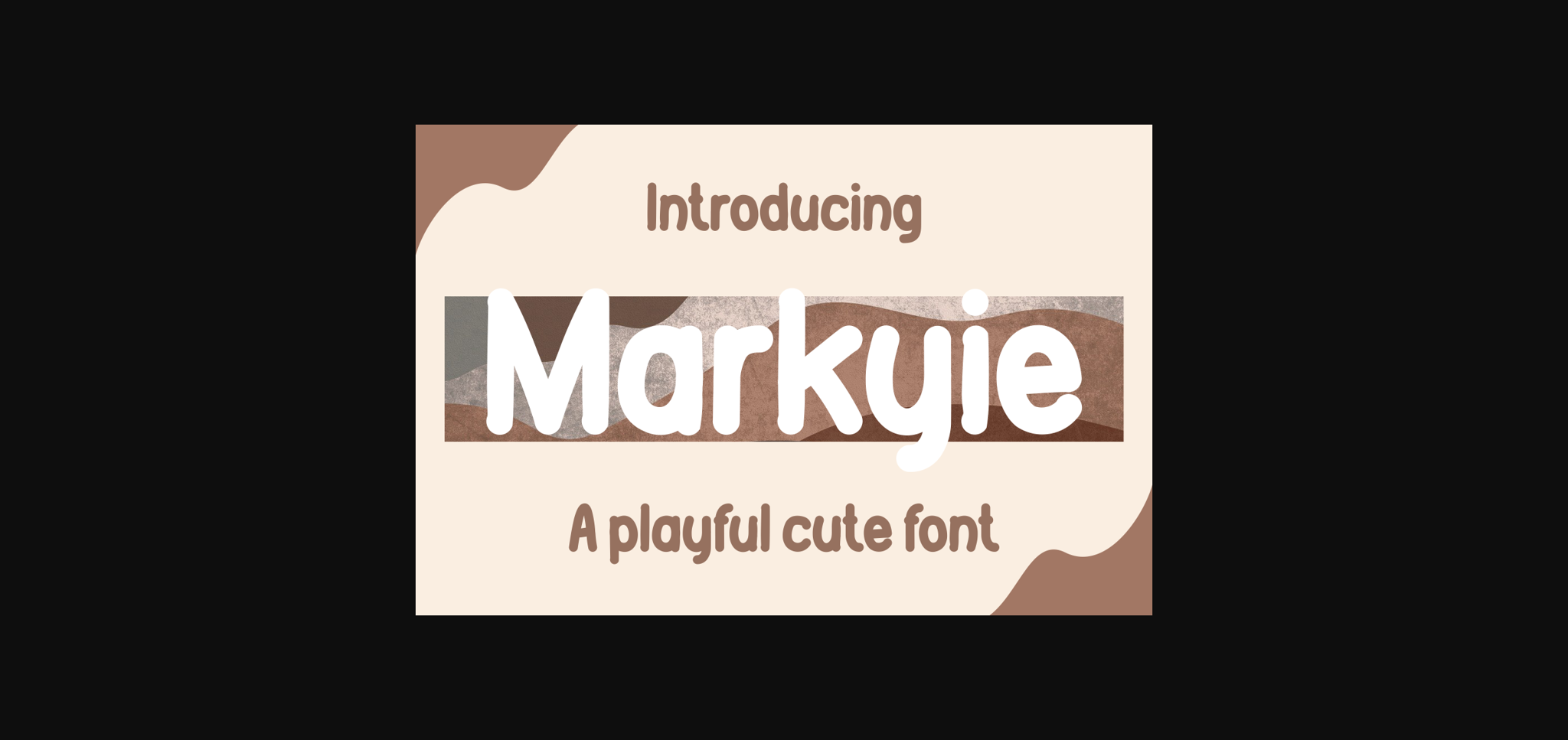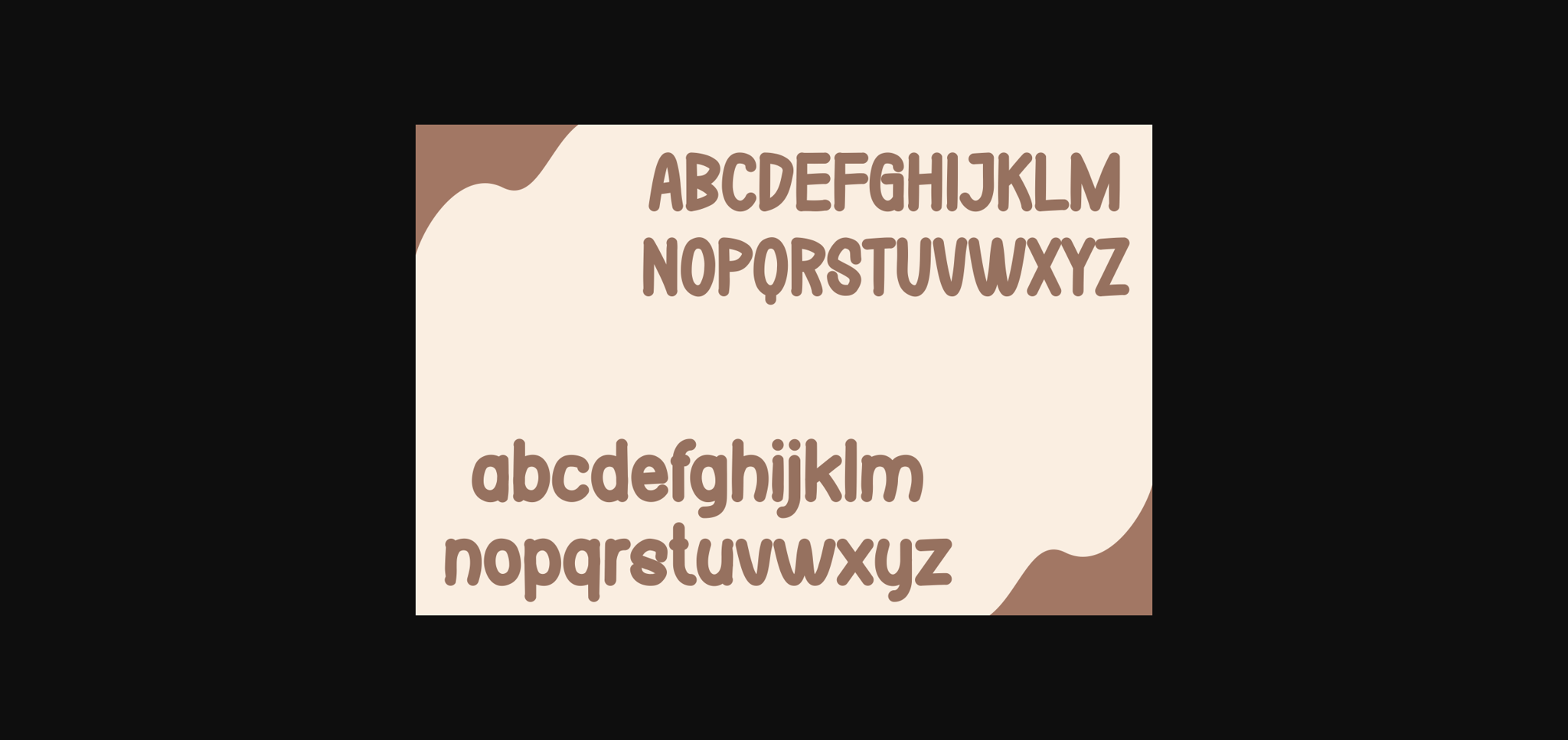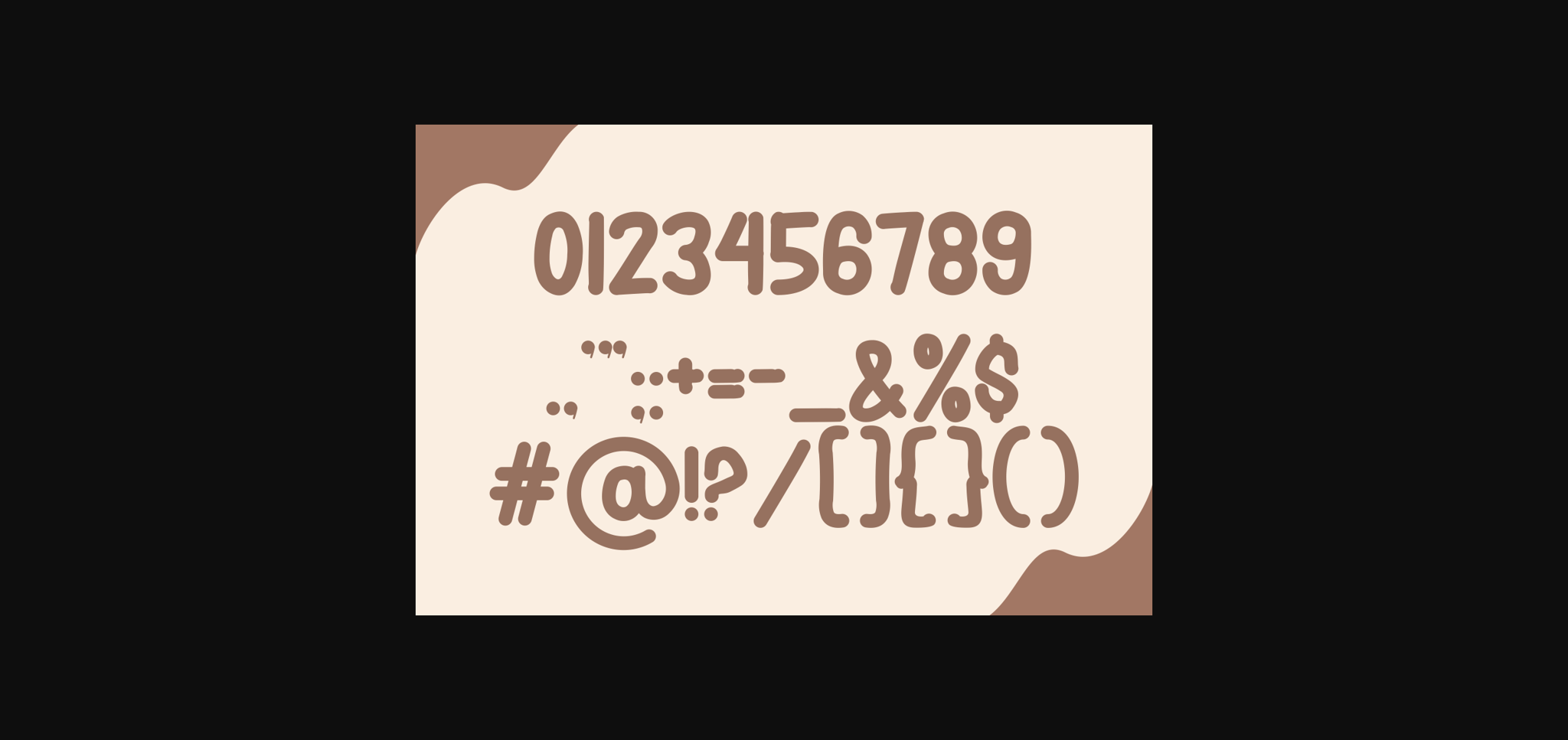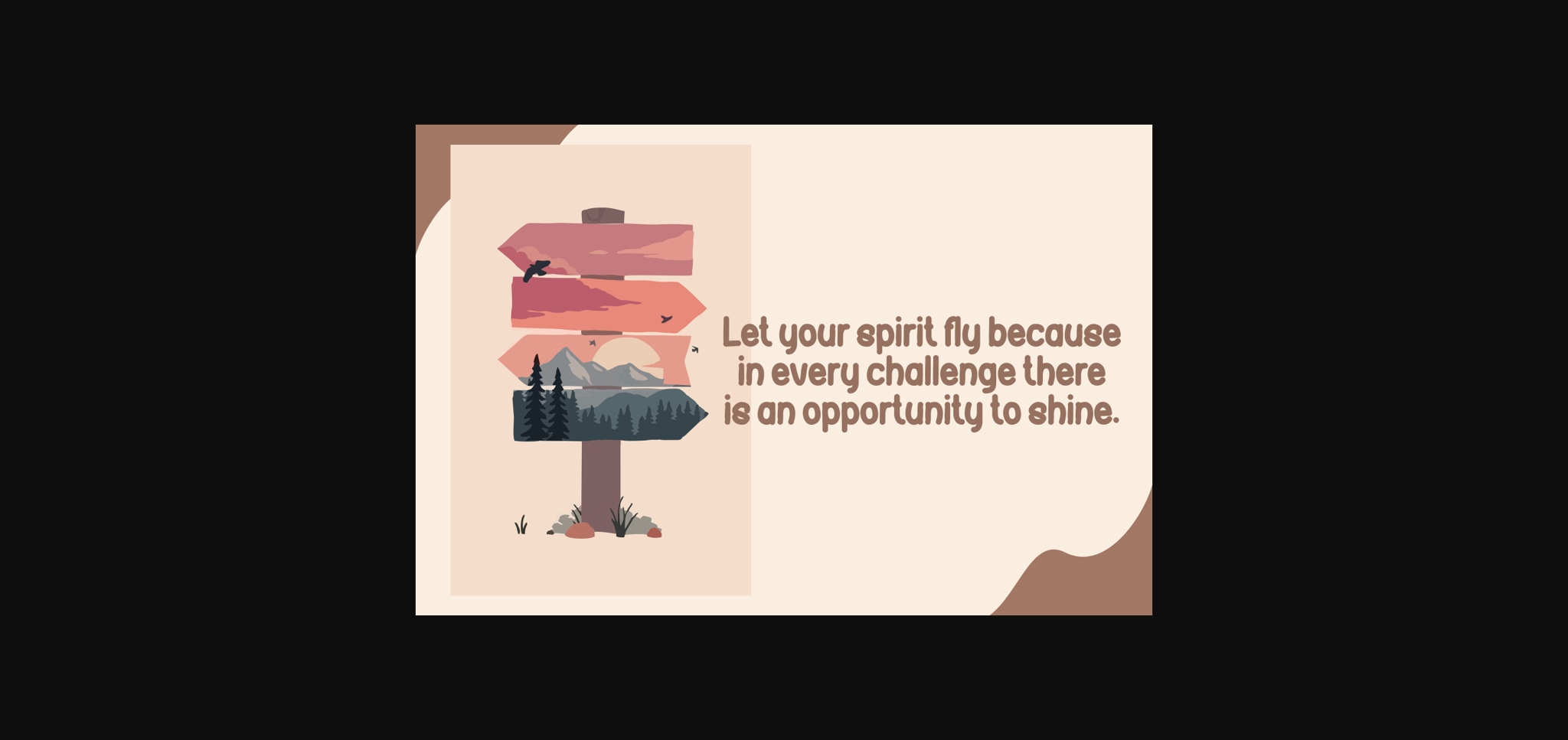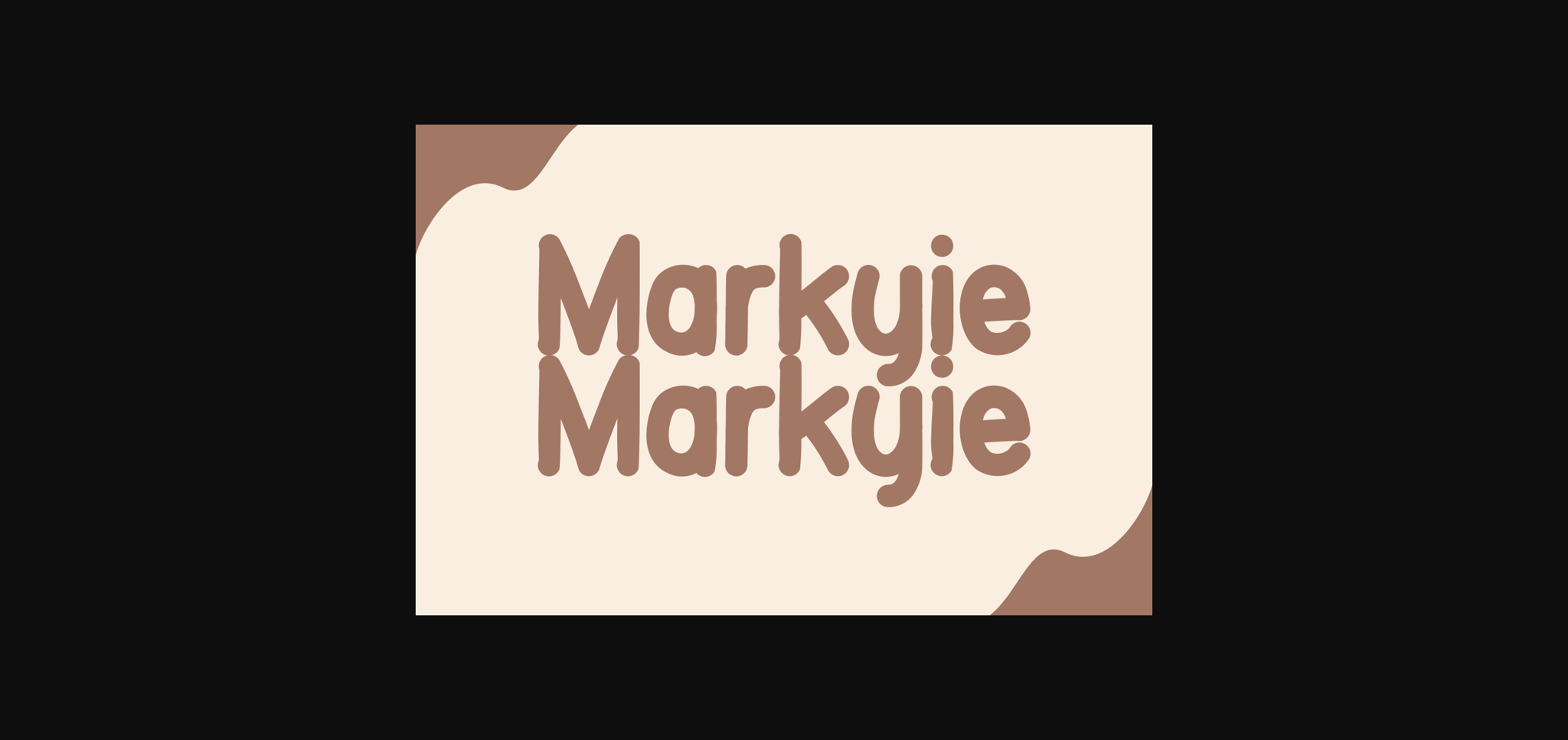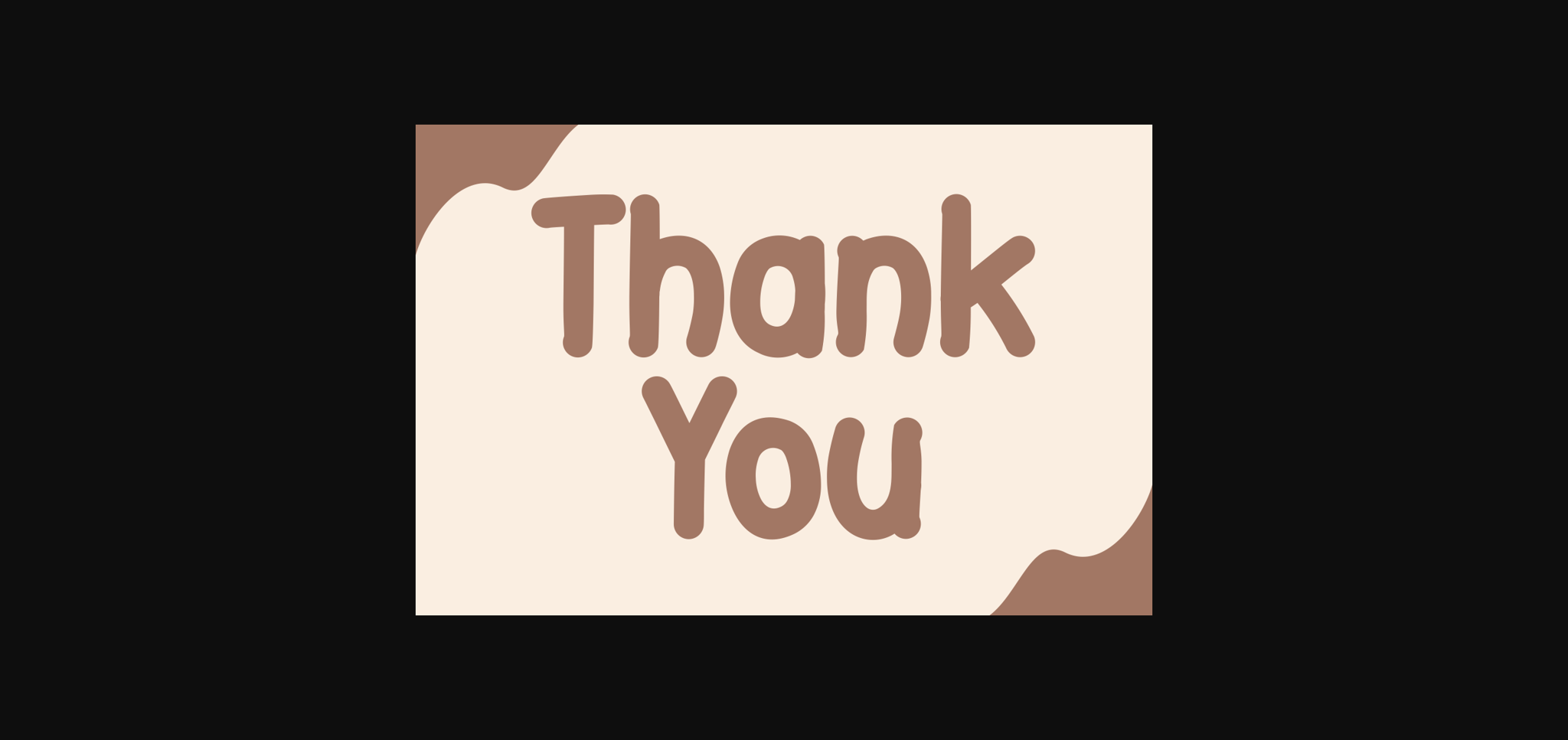
HomeSans Serif FontsMarkyie Font Sans Serif Fonts Markyie Font FacebookXPinterestWhatsApp 1 of 8 ... Markyie Font Poster 2... Markyie Font Poster 3... Markyie Font Poster 4... Markyie Font Poster 5... Markyie Font Poster 6... Markyie Font Poster 7... Markyie Font Poster 8... About Markyie Font Markyie is a cute and charming sans-serif font. Add it to your creative ideas and enjoy the results! DOWNLOAD NOW People also explored Stryke Kikyota Font The Beauty Font Wincent Outline Extra Black Font Yolan Font Julia Magas Font Grassruke Font Sunshine Font 602 0 TagsMarkyieMarkyie Font Previous articleNotesi FontNext articleShiny Morning Font LEAVE A REPLY Cancel reply Comment: Please enter your comment! Name:* Please enter your name here Email:* You have entered an incorrect email address! Please enter your email address here Website: Save my name, email, and website in this browser for the next time I comment. Personal Use Free Ciggs Personal Use Free Read more about this font Deftone Personal Use Free Read more about this font Alphakind Personal Use Free Read more about this font BD Medled Personal Use Free Read more about this font BLOG How to Install and Use Fonts on Windows, macOS, and Web Projects How to Install and Use Fonts on Windows, macOS, and Web Projects Fonts are a crucial part of design and branding. Whether you’re designing a... Top 7 Google Fonts Alternatives for Faster and Privacy-Friendly Web Design (2025) Best Fonts for T-Shirt Design – Top 2025 Picks Transform Your Website: Elevate Your Typography with 7 Best Web Font Generators